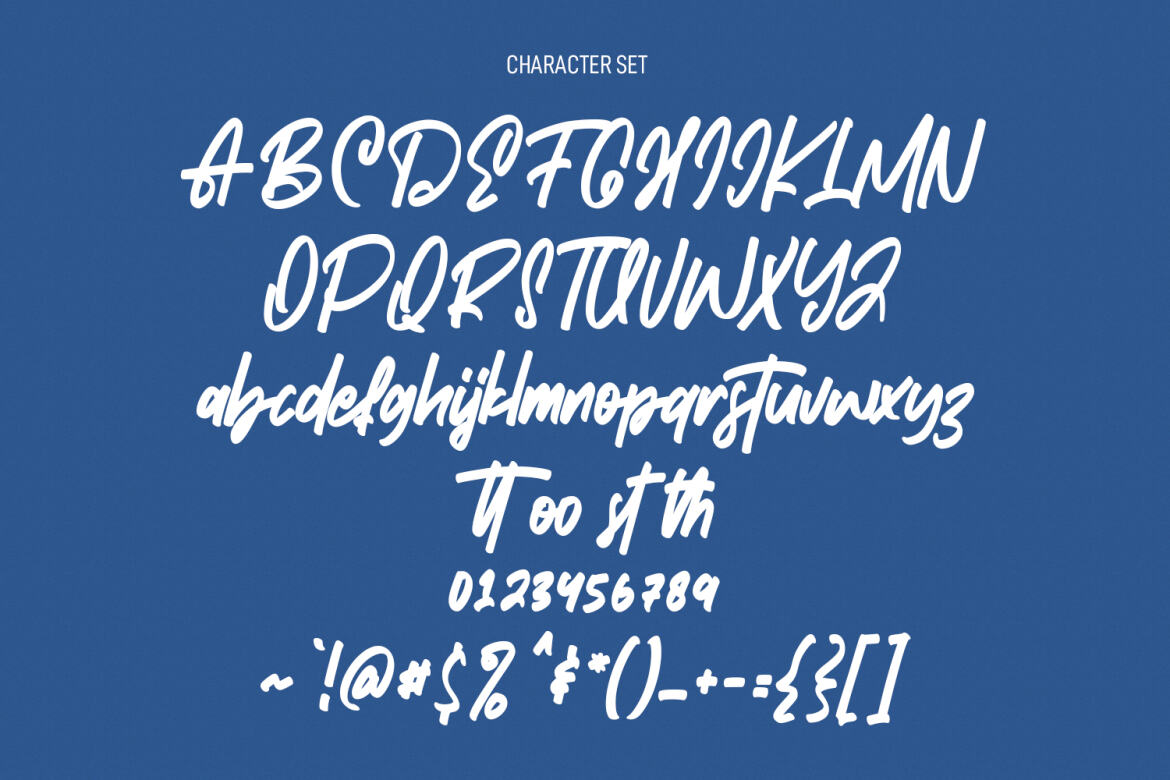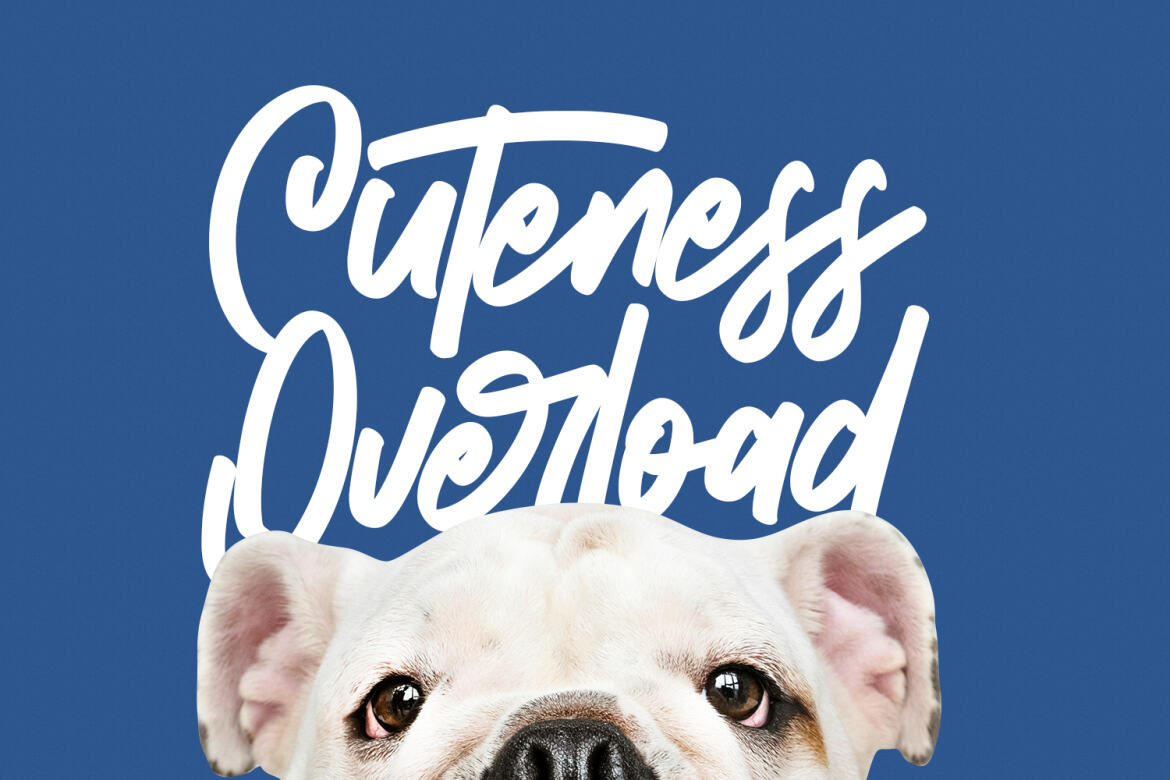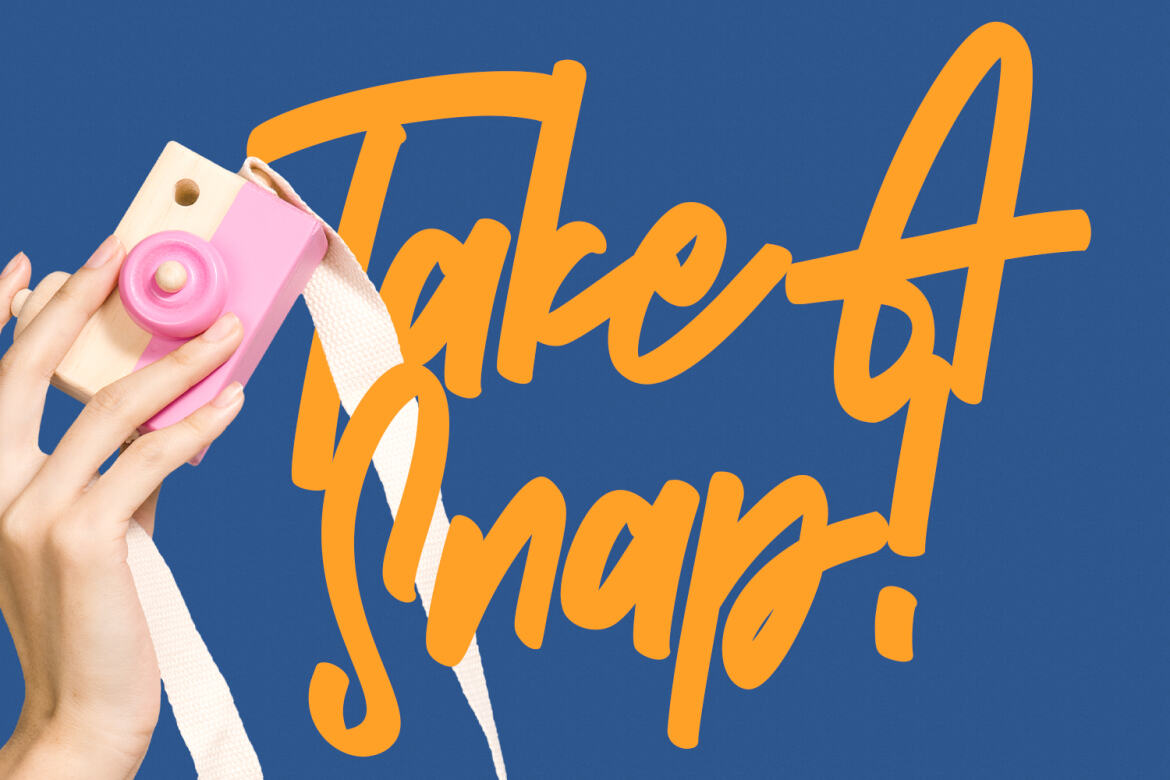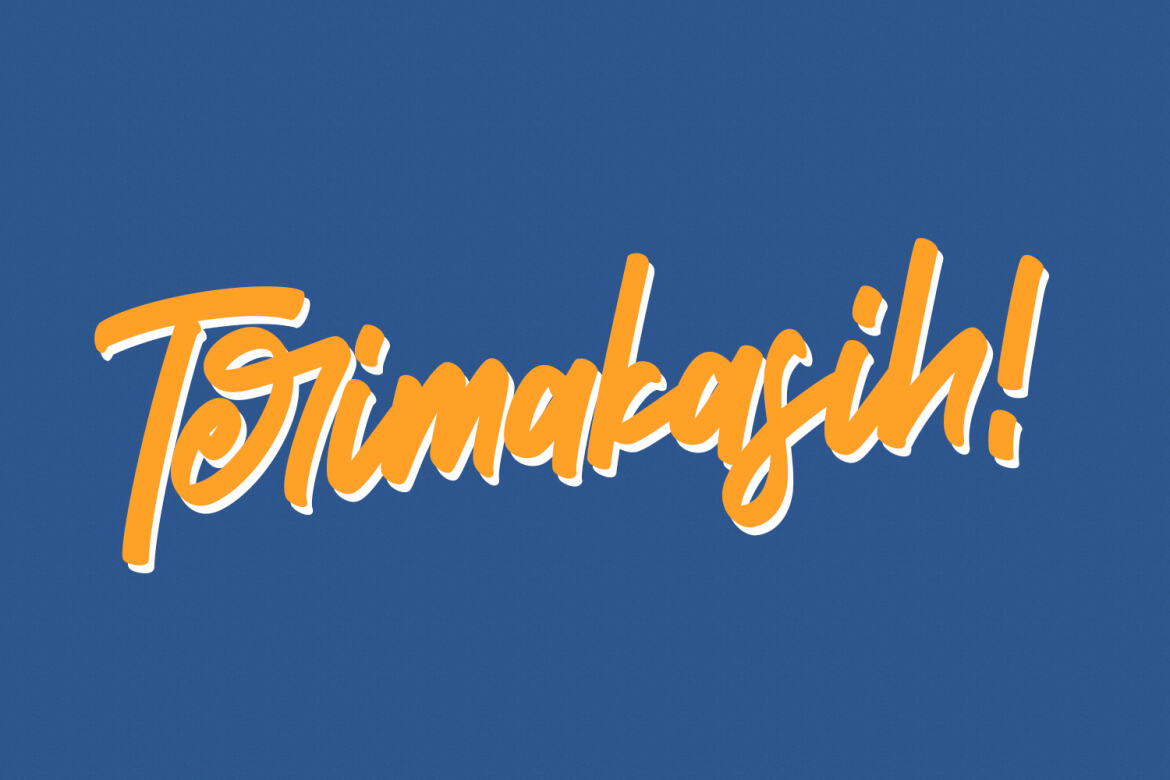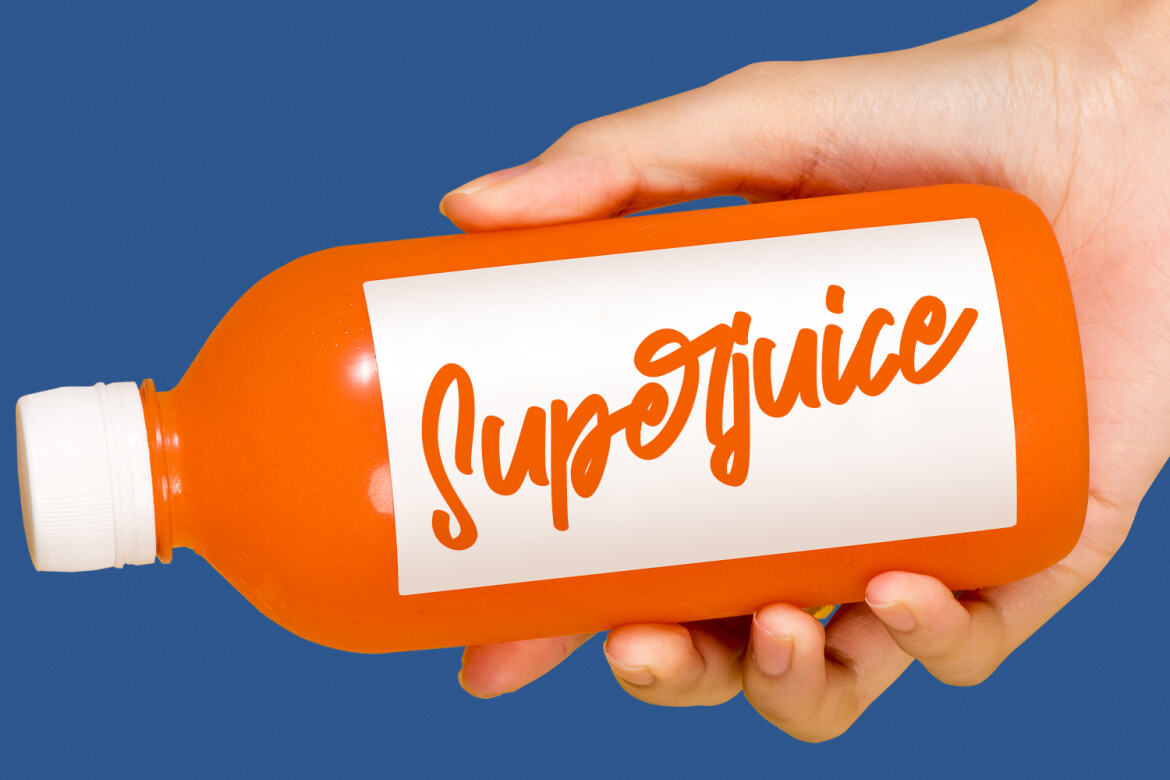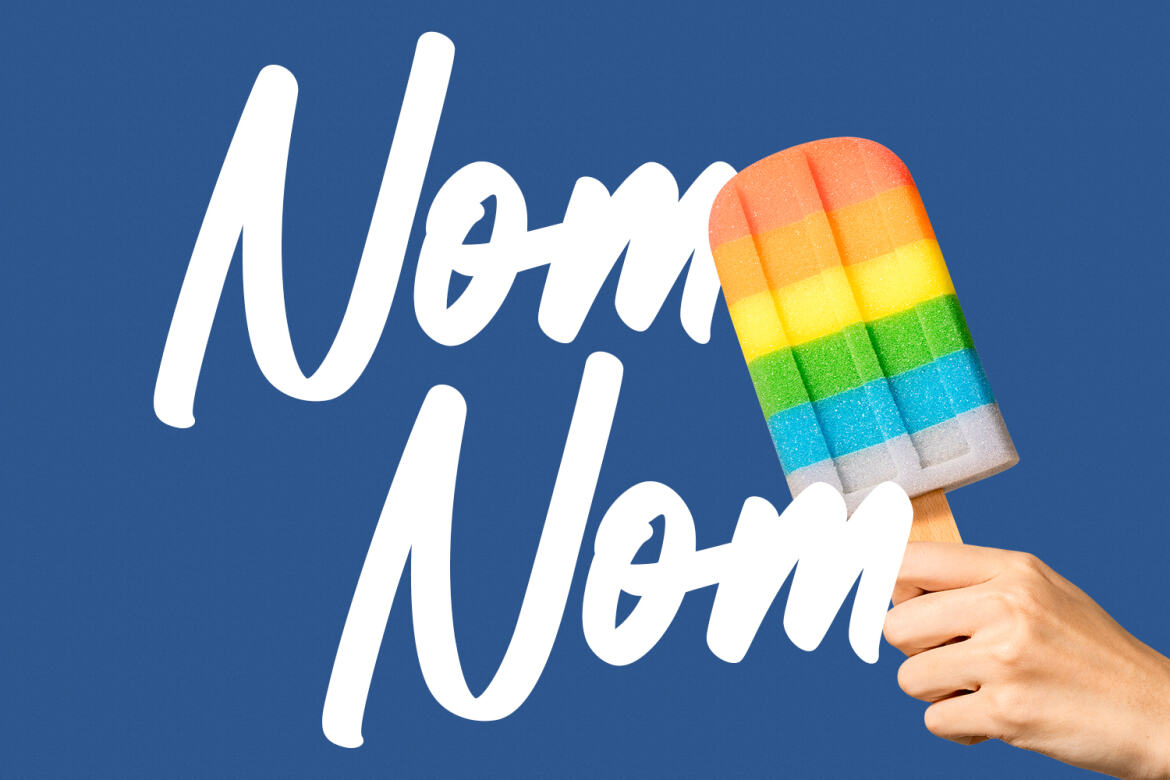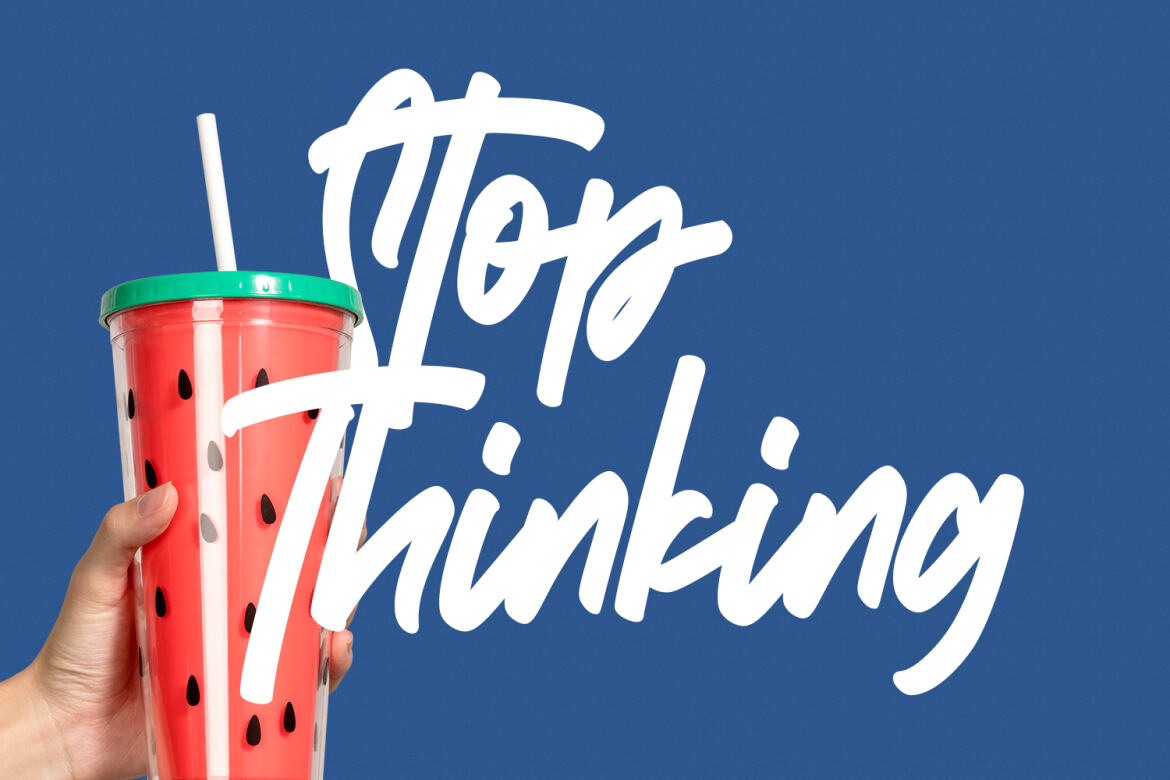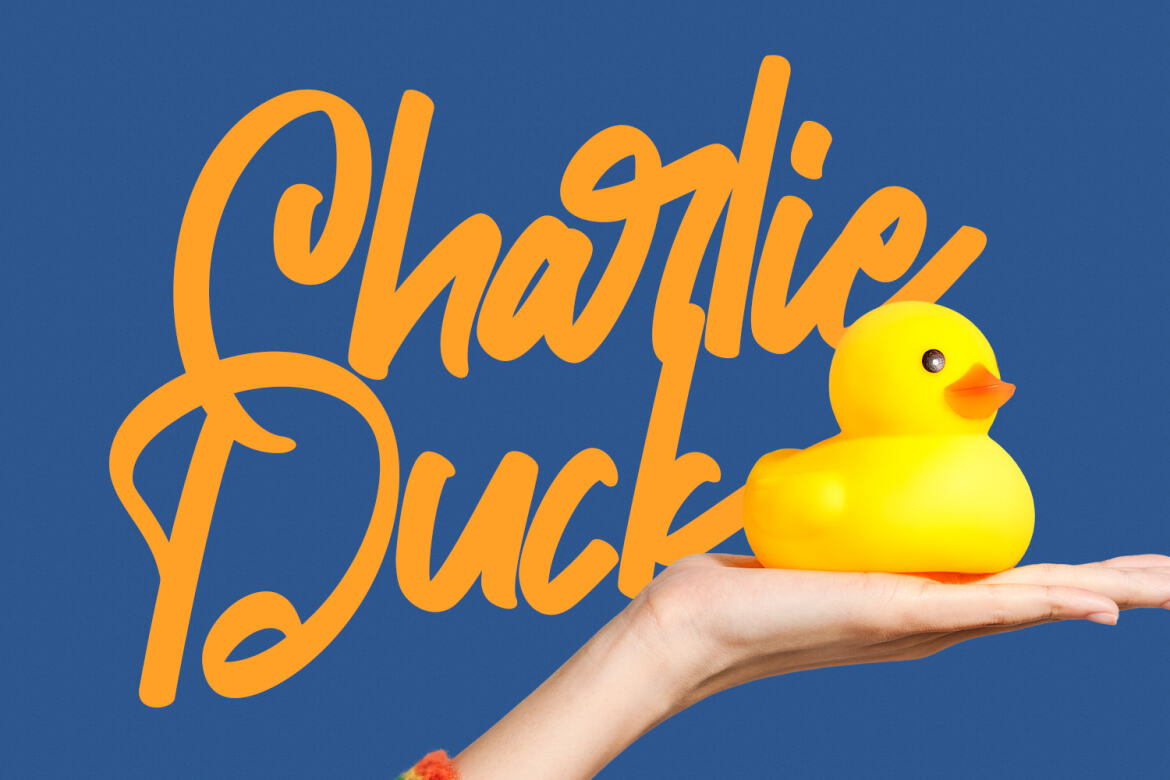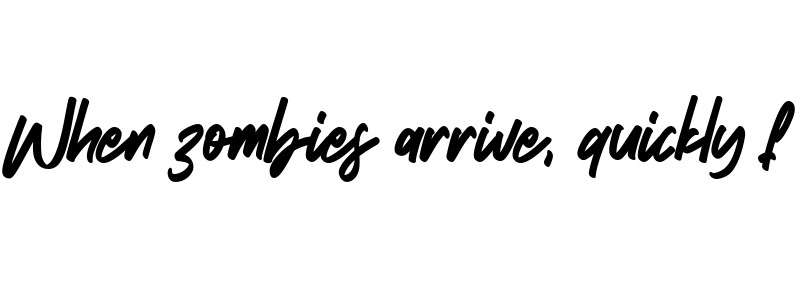
Ethernalize FREE Font
Ethernalize
Ethernalize is a handwritten script font. With bold felt tip stroke, fun character with a bit of ligatures. To give you an extra creative work. Ethernalize font support multilingual more than 100+ language. This font is good for logo design, Social media, Movie Titles, Books Titles, a short text even a long text letter and good for your secondary text font with sans or serif. Make a stunning work with Ethernalize font.